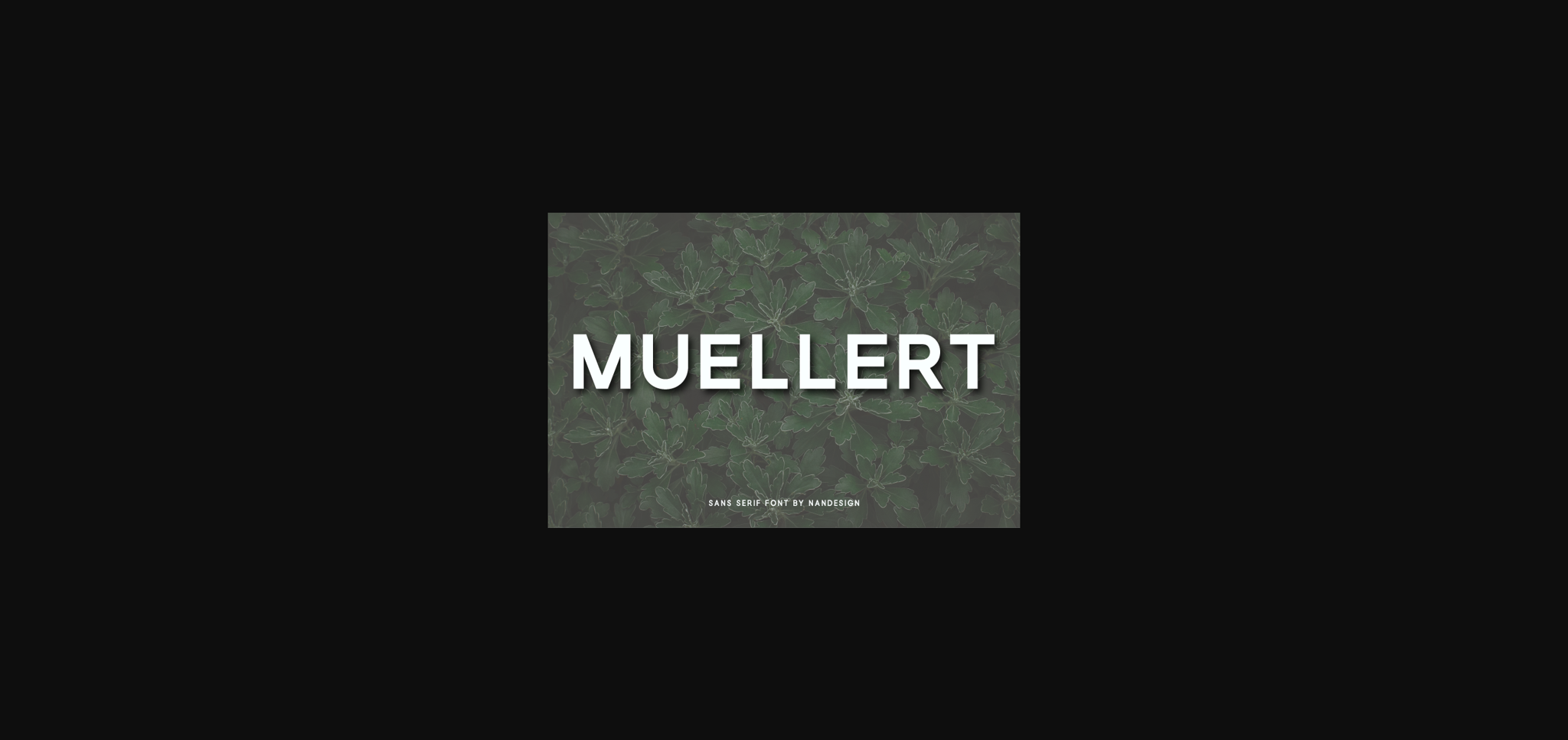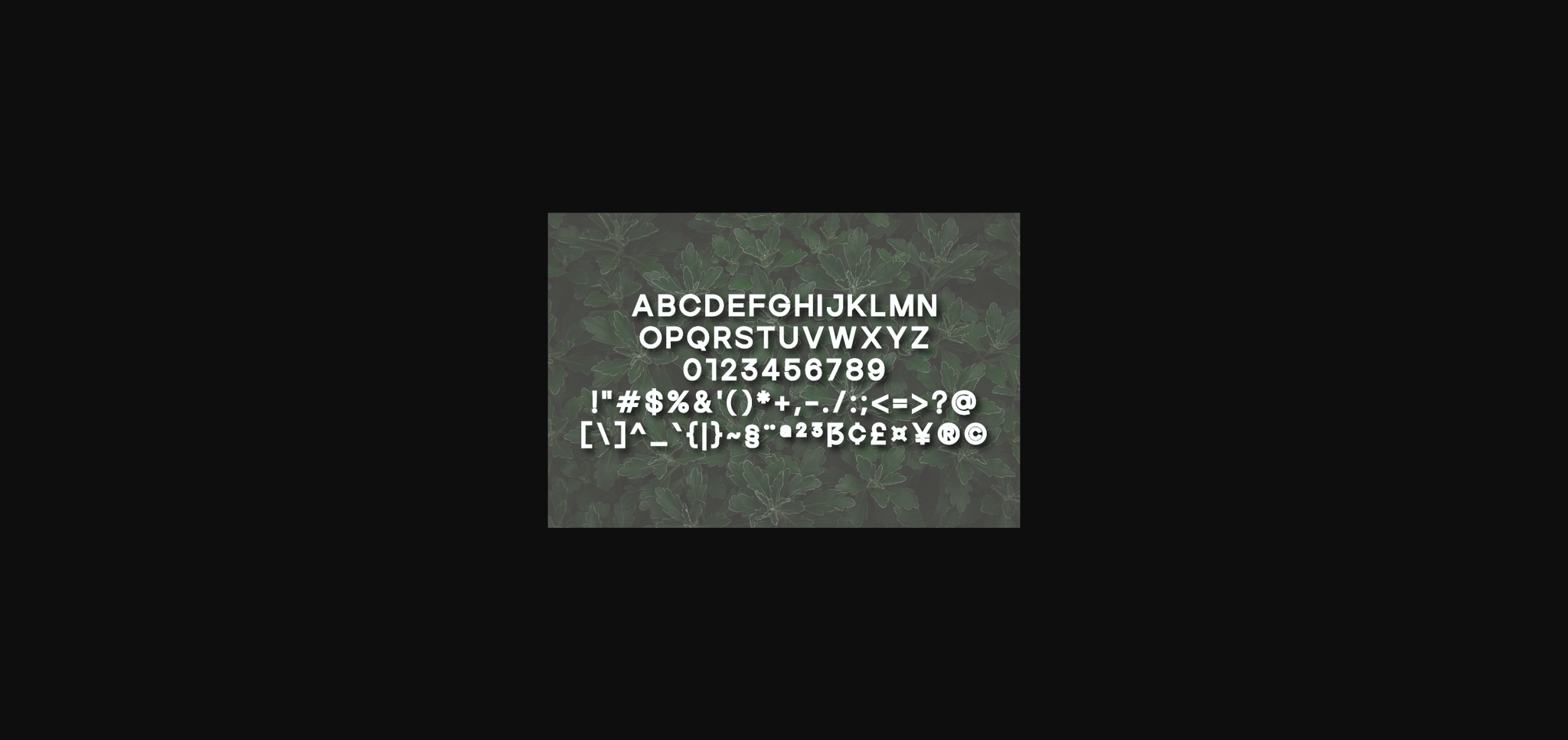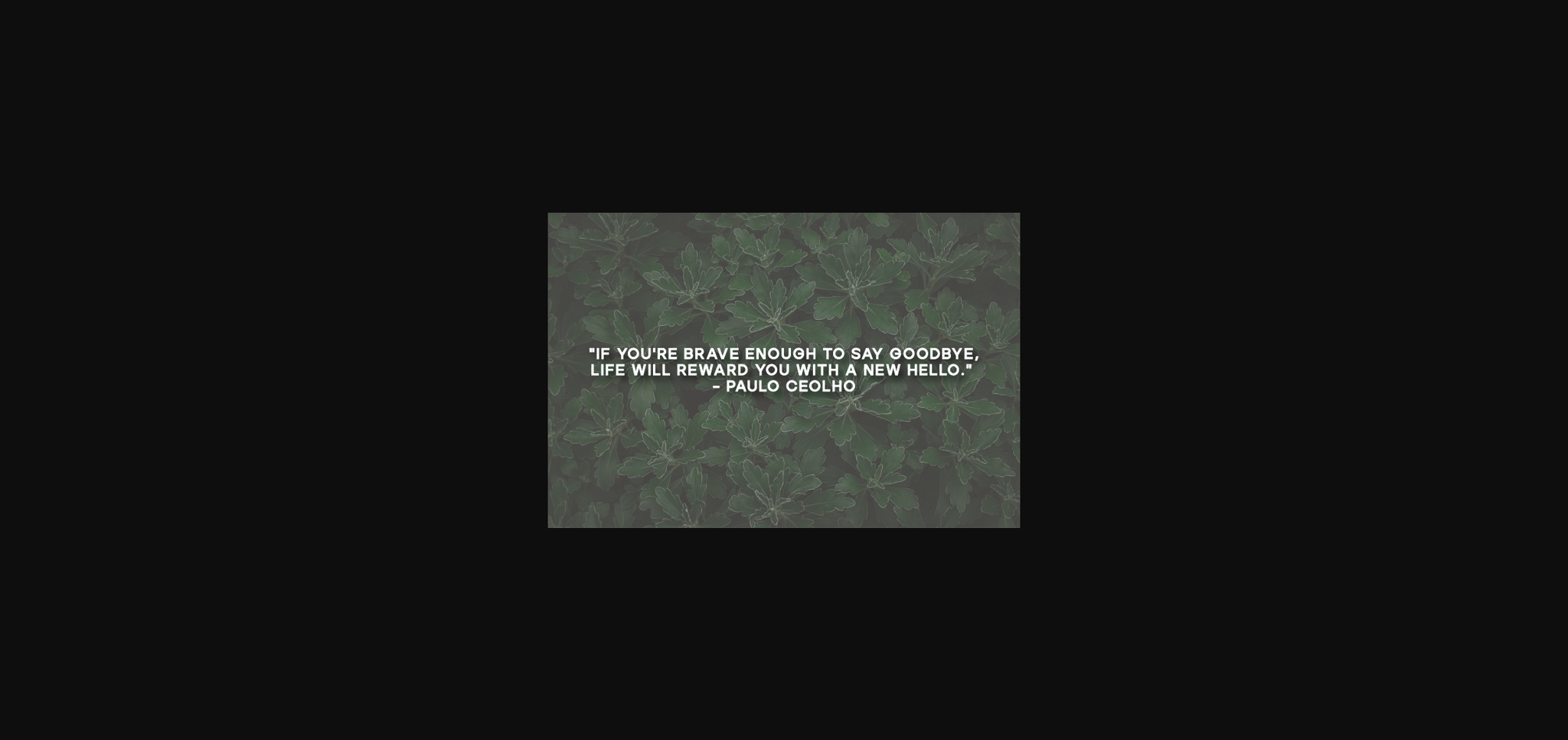
About Muellert Font
Muellert is a bold and trendy lettered sans serif font. It is suitable for any branding, product packaging, invitation, quote, t-shirt, label, poster, logo that you wish to develop.